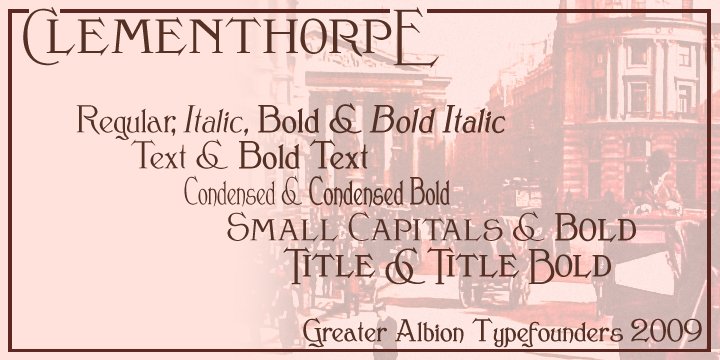
First seen on MyFonts: June 3rd, 2009 Clementhorpe is inspired by the lettering on an early 20th century enamel advertisement-for chocolate. From the dozen or so hand drawn letters found in that source Greater Albion Typefounders have constructed a family of Roman faces for display and text work, with bold weights, an italic form as well as condensed, small capital and title forms, all preserving the fun of their inspiration. The Clementhorpe family provides a complete solution for early 20th century inspired design work with Character, offering all the faces needed to complete a project or a range of projects within one family. Give this flexible family a try in your next project! Not quite what you’re looking for? Try looking at more fonts like this. |